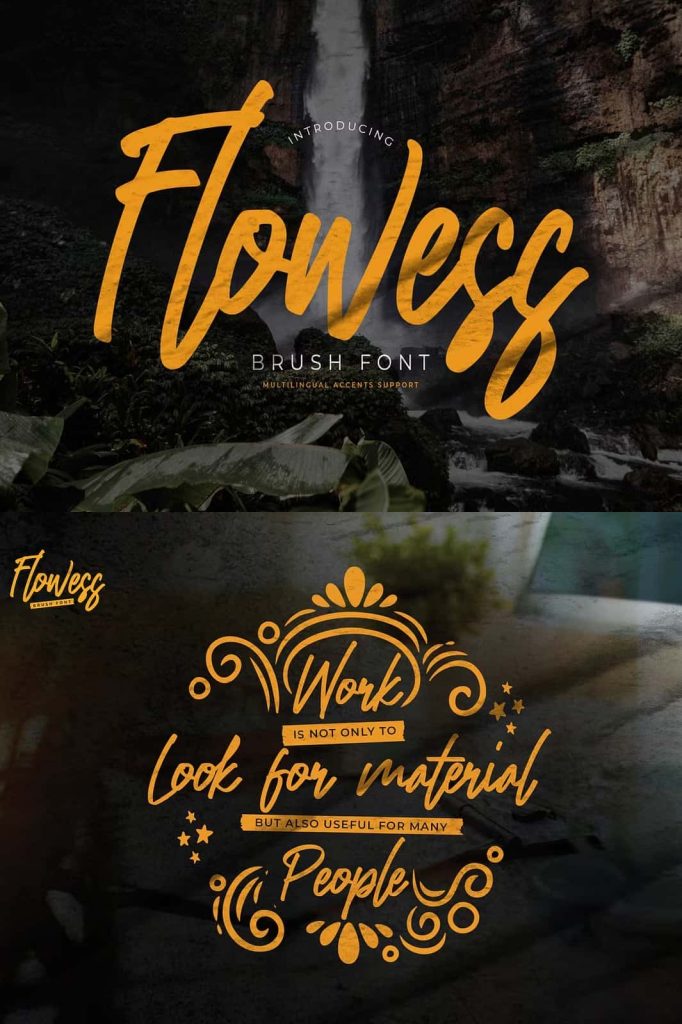
Hello Everyone, introduce our new product Font Flowess ,This Is Brush Font is a Textured Natural Style and classy style with a clear style and dramatic movement.